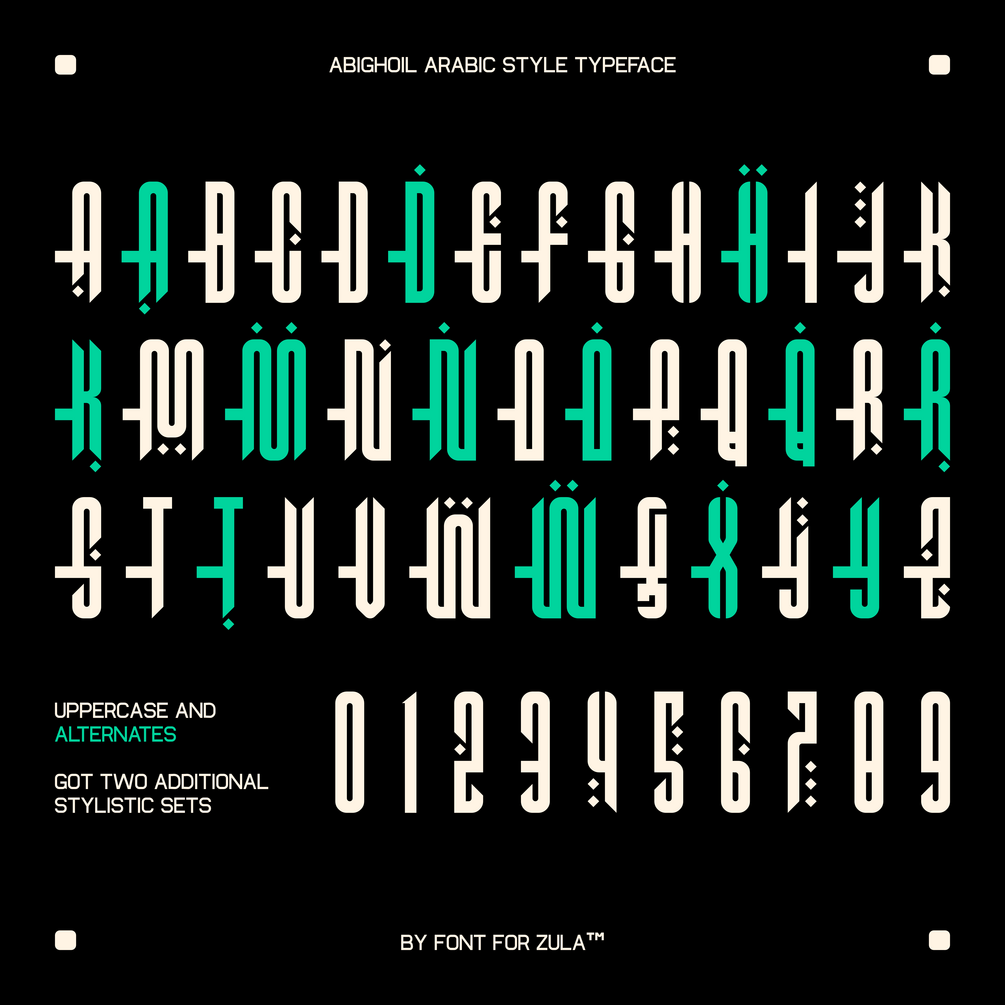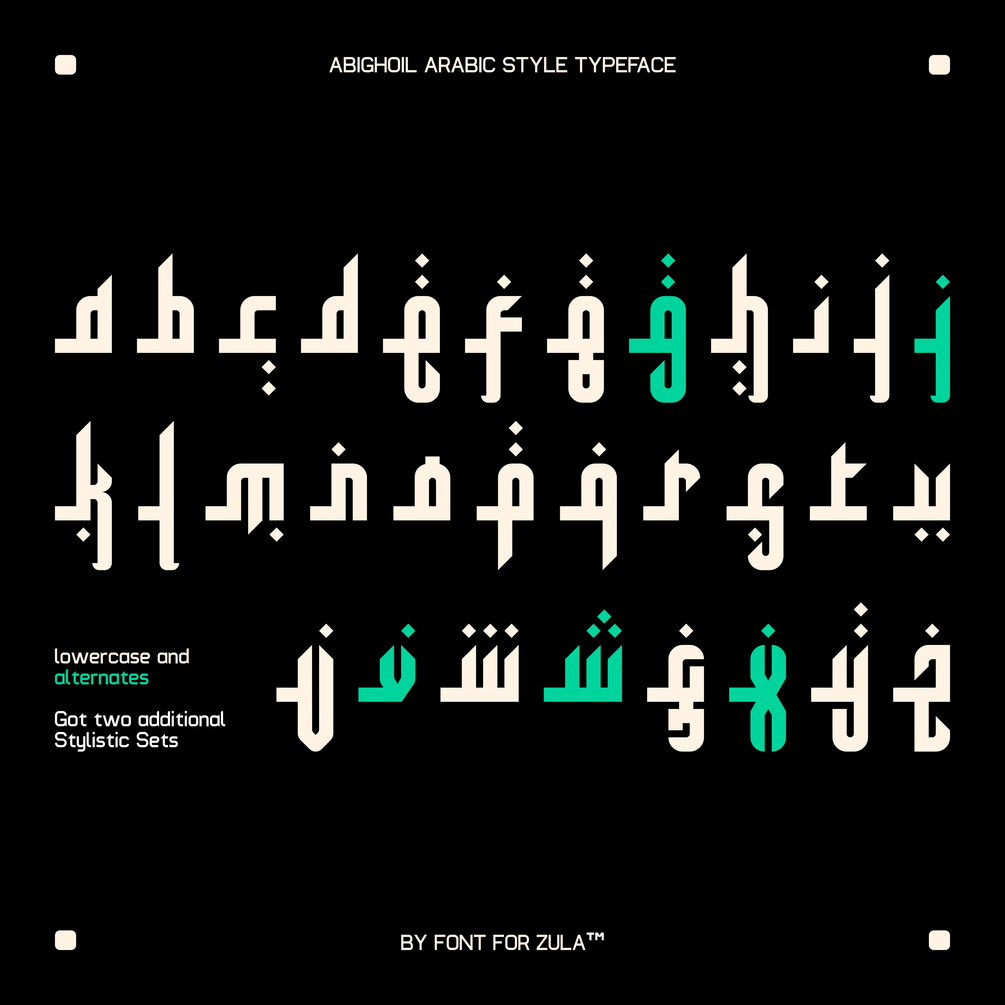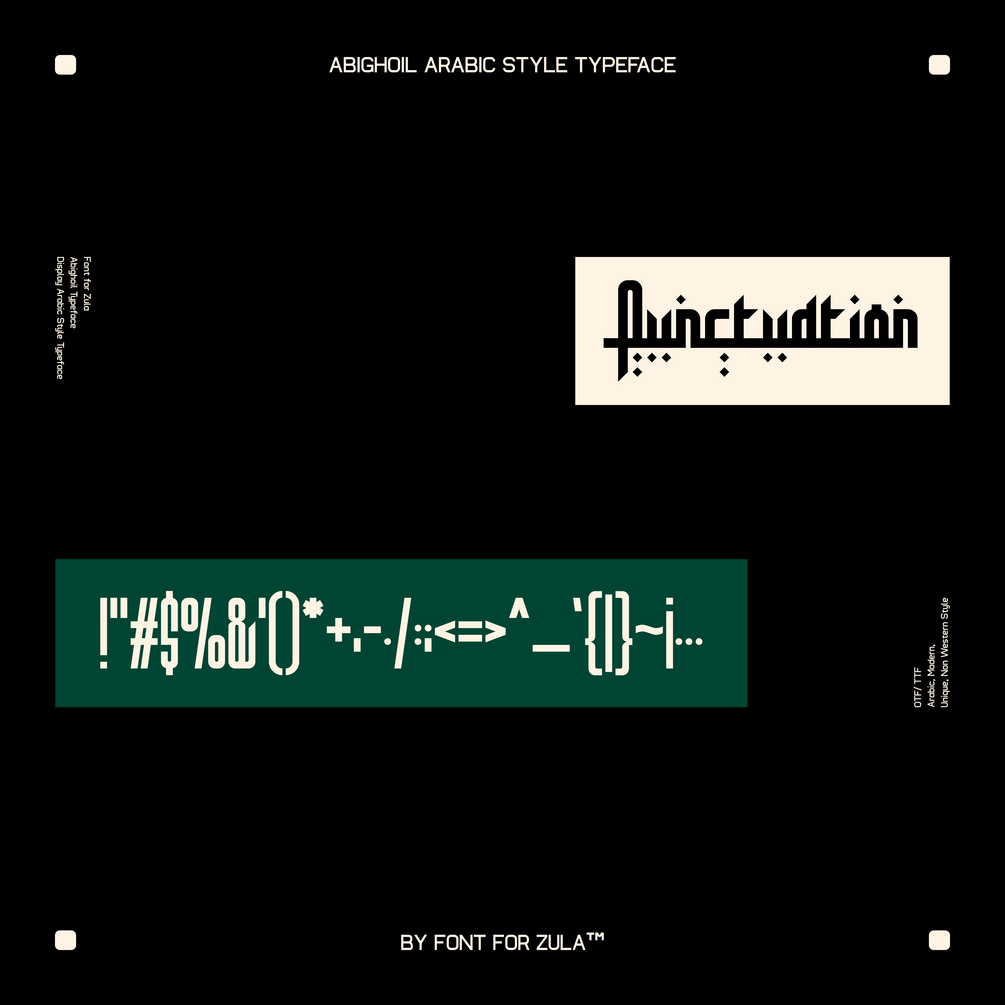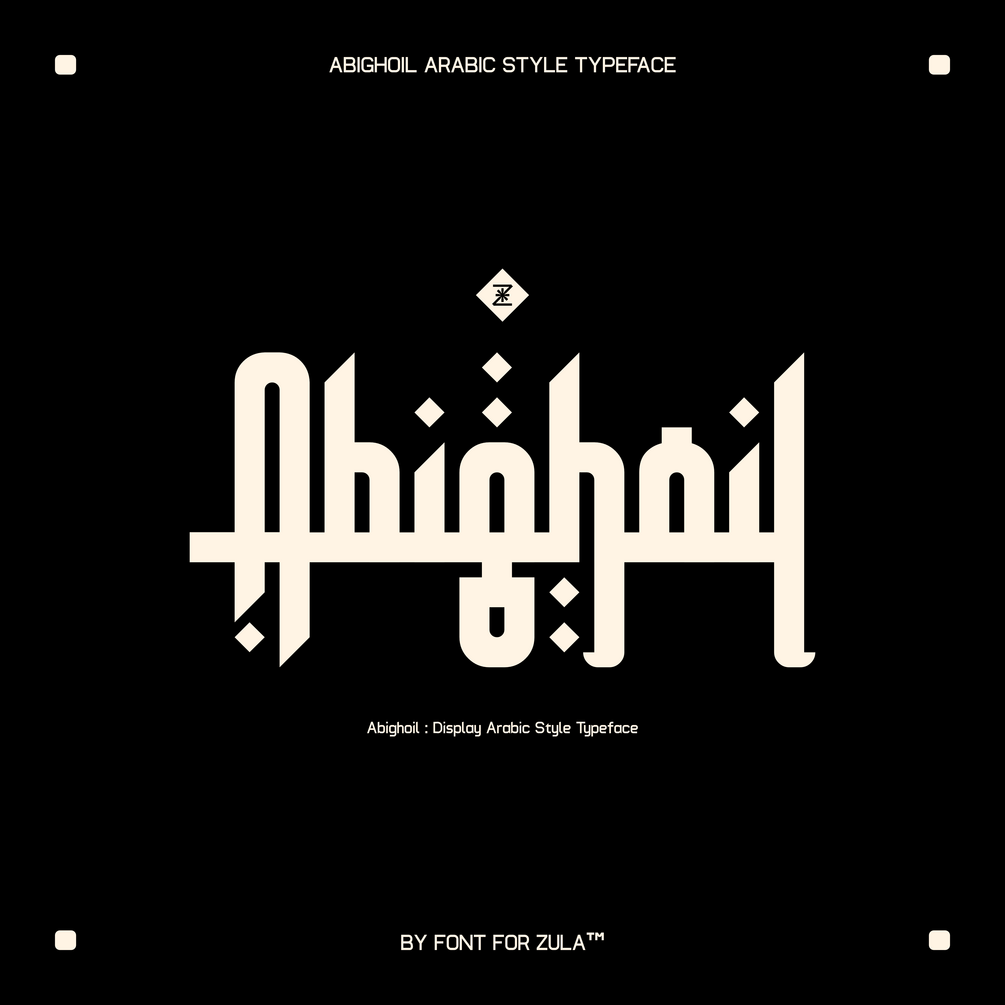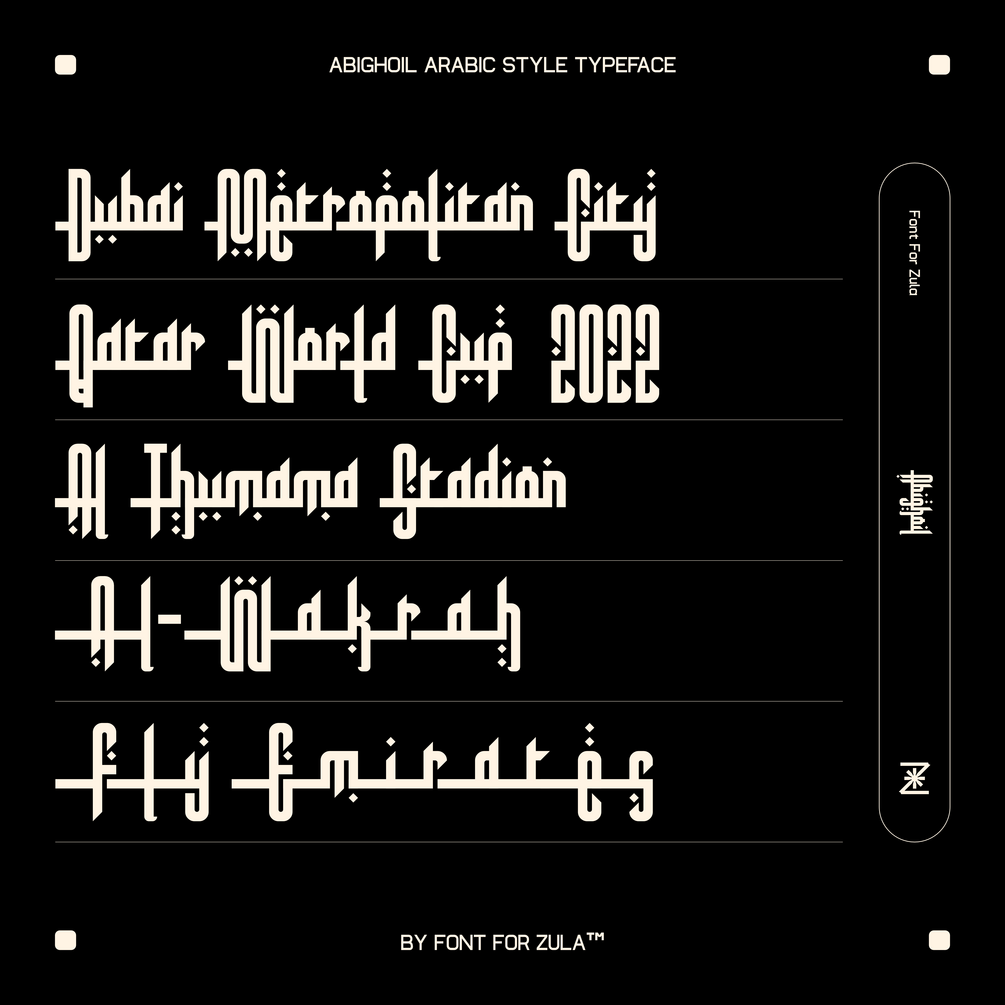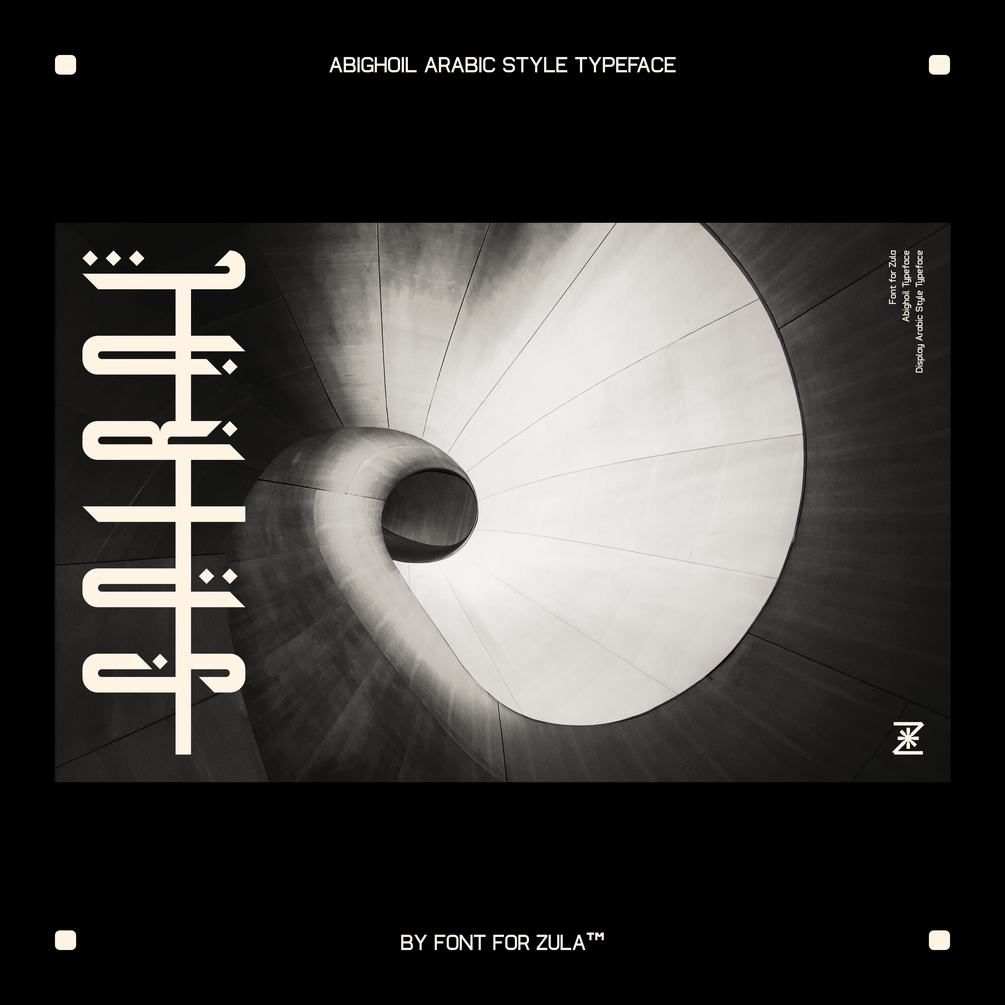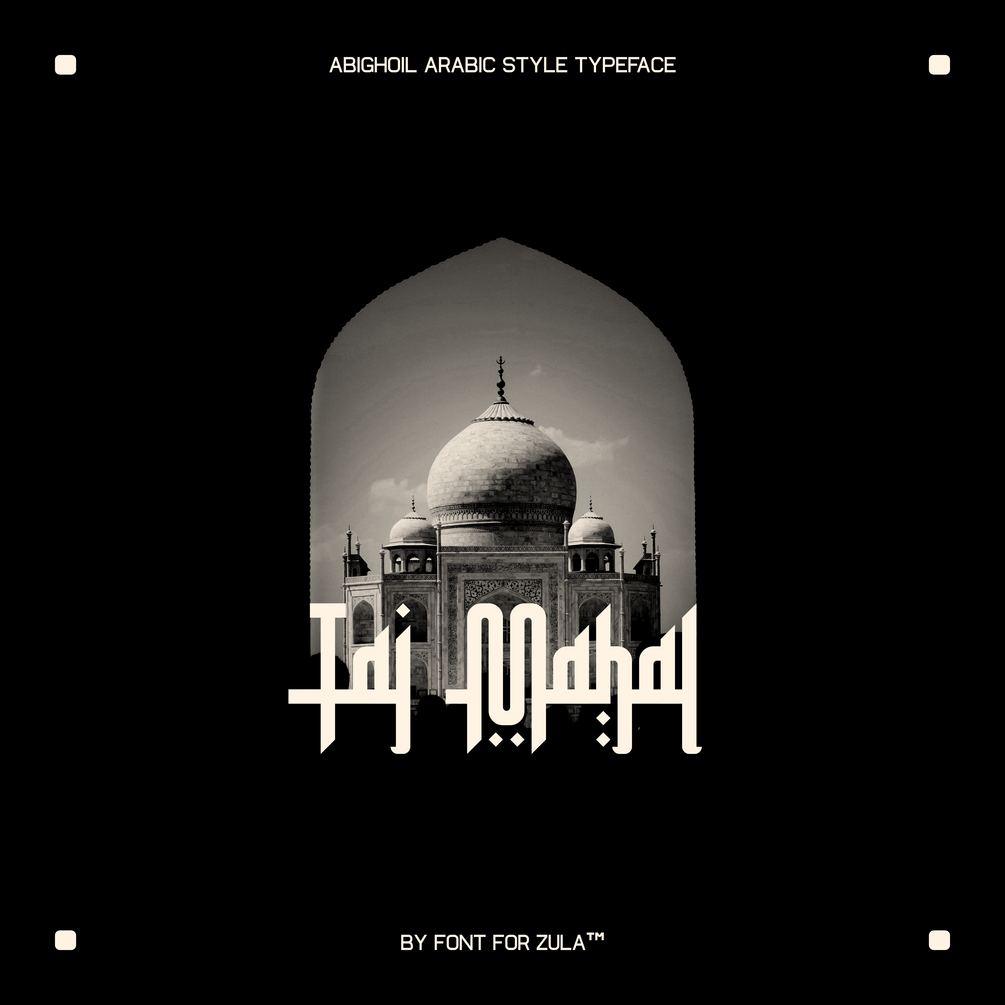
ABIGHOIL
THERE ARE INTERESTING BONUS FILES | Abighoil Typeface is inspired by the shape of Arabic letters packaged in a modern and unique shape. The creation of this typeface was also inspired by the 2022 World Cup in Qatar.
– Uppercase (26) Alternates (13)
– Upper SS01 (26) SS02 (13)
– Lowercase (26) Alternates (5)
– Lower ss01 (26) ss02 (5)